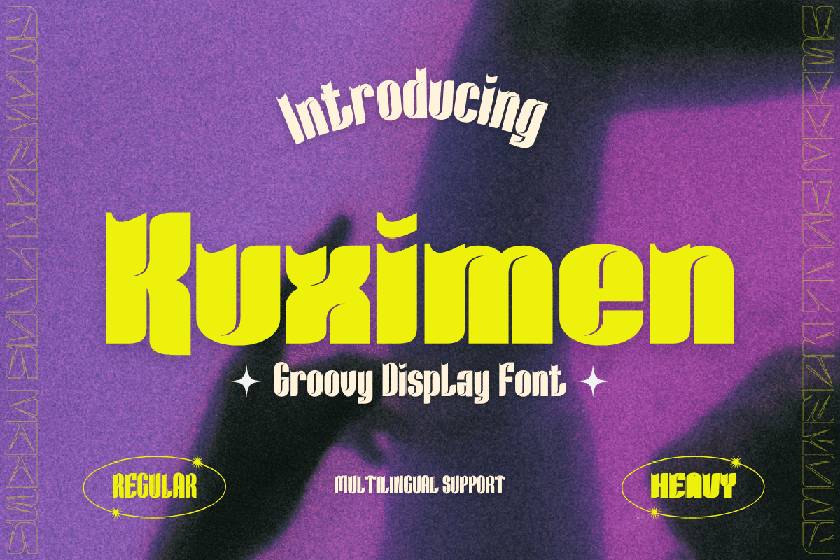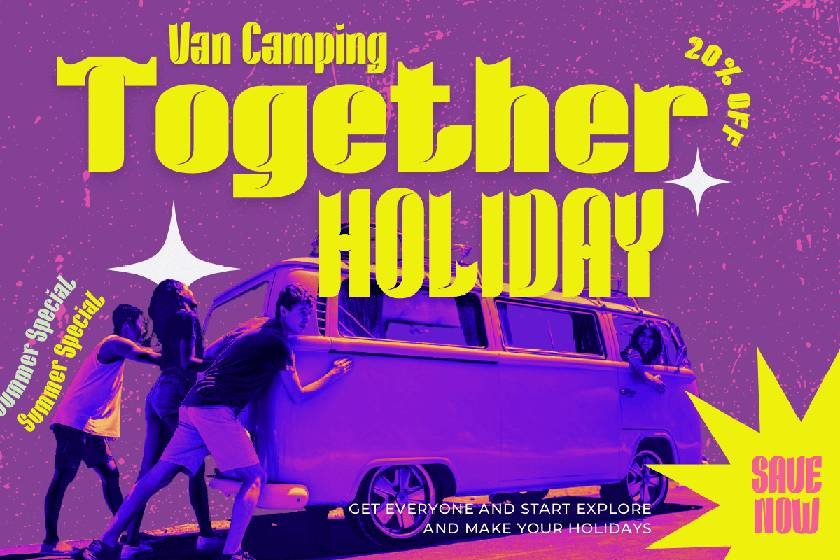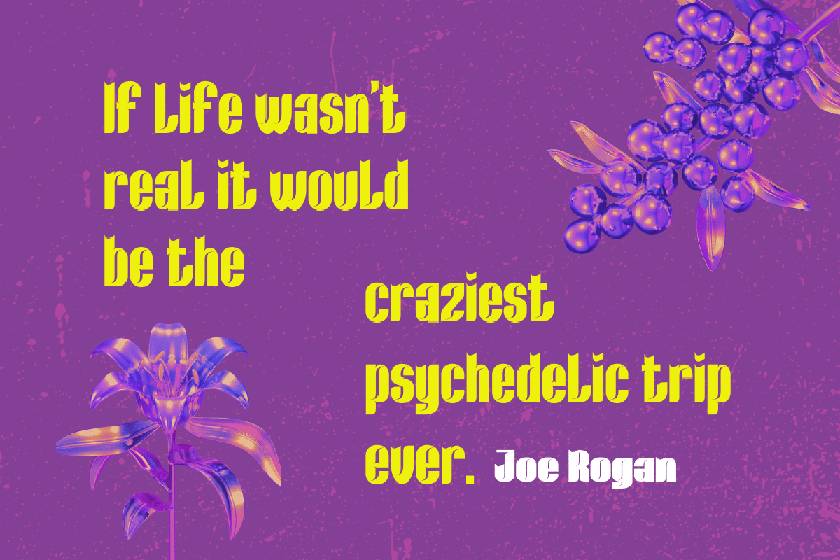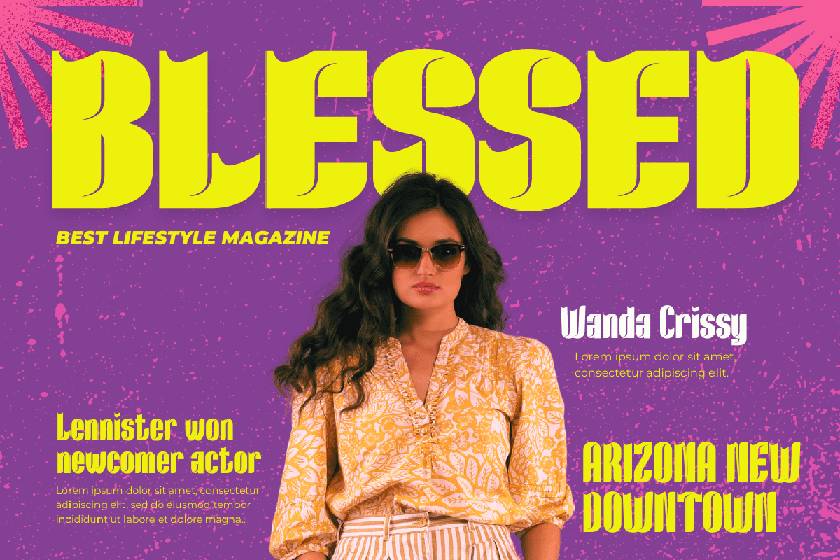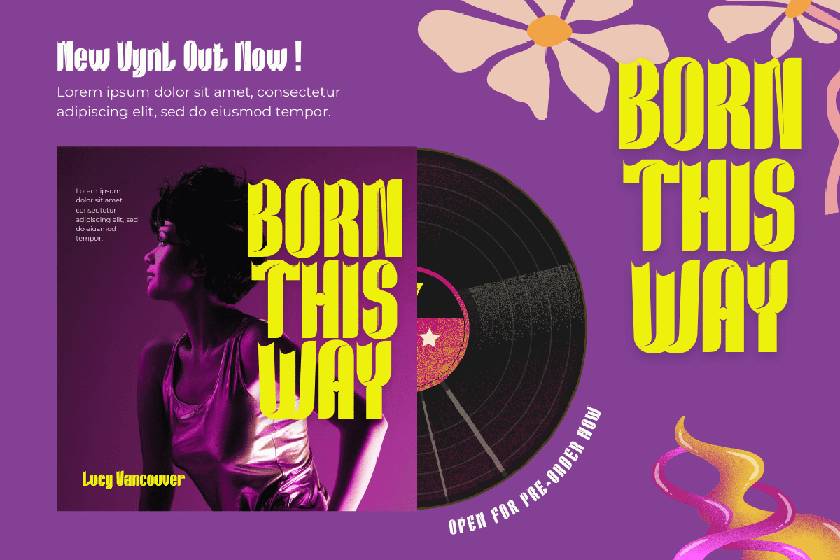
Kuximen Heavy is a bold, condensed sans-serif font with strong geometric shapes and high contrast between thick and thin strokes. Its unique, stylized letterforms create a striking, modern look that works well for eye-catching headlines, logos, and posters. This font’s powerful personality adds a sense of creativity and impact, making it ideal for brands seeking a bold and distinctive voice.
Kuximen Font
About Kuximen Font